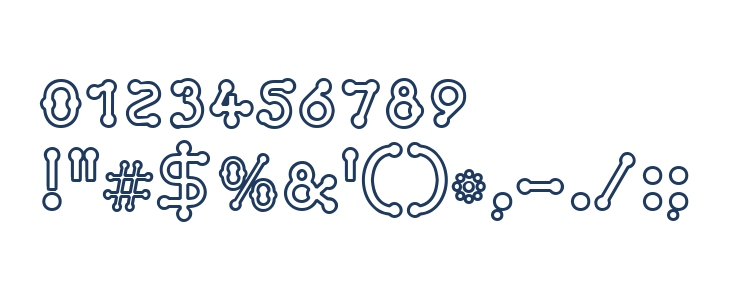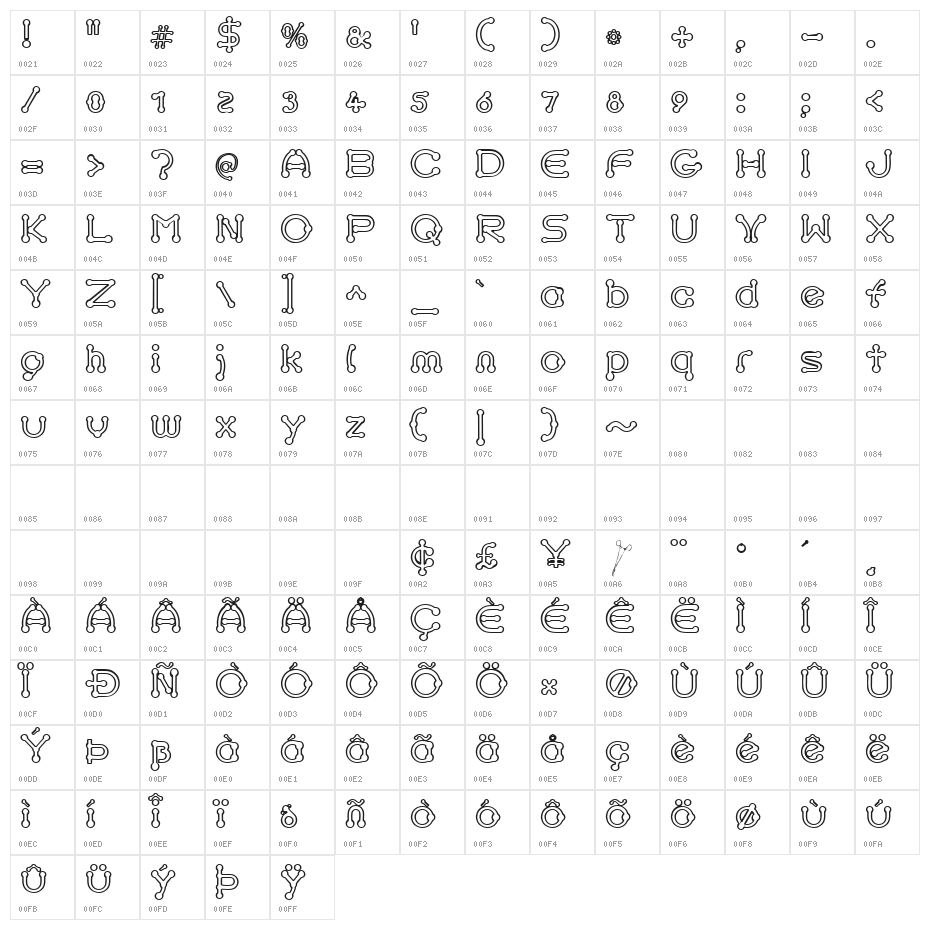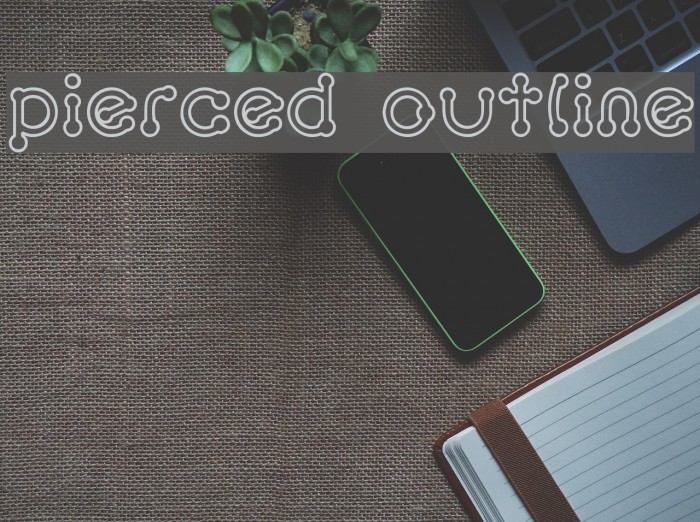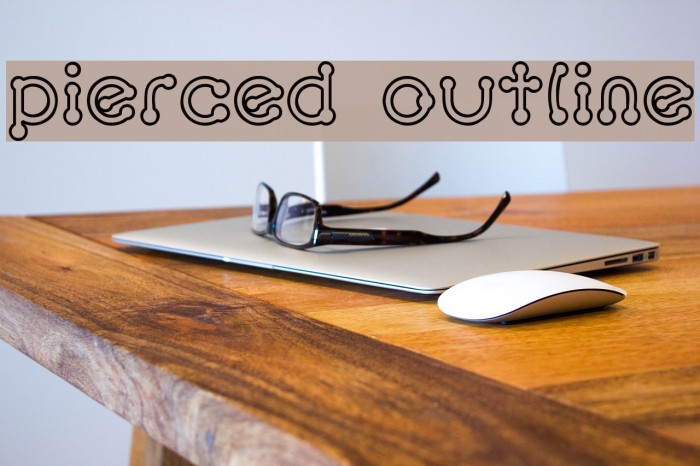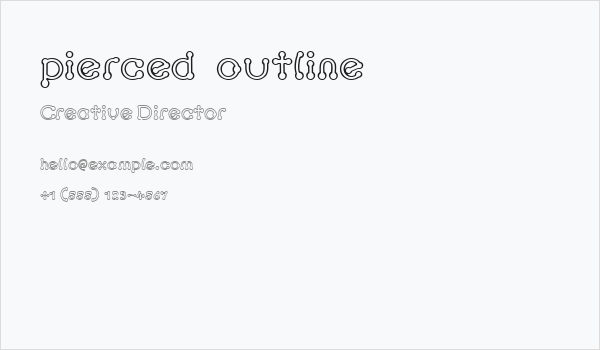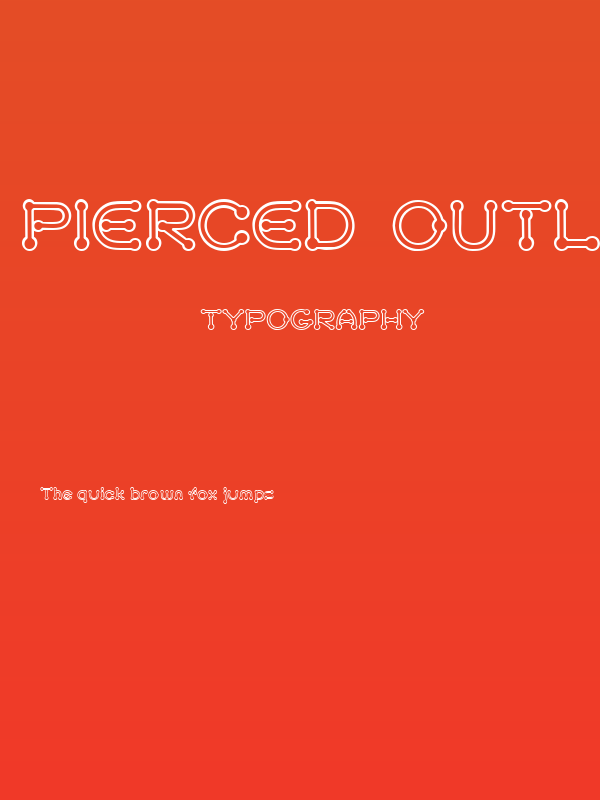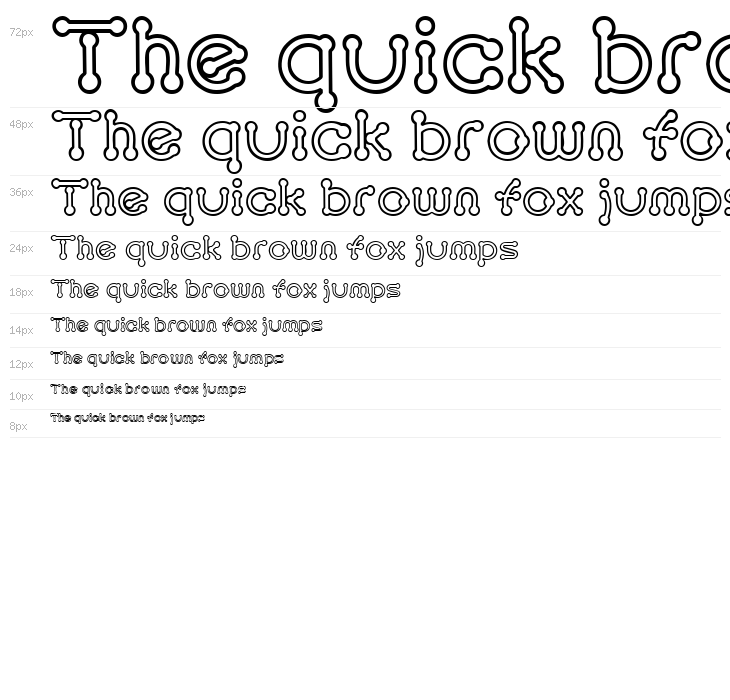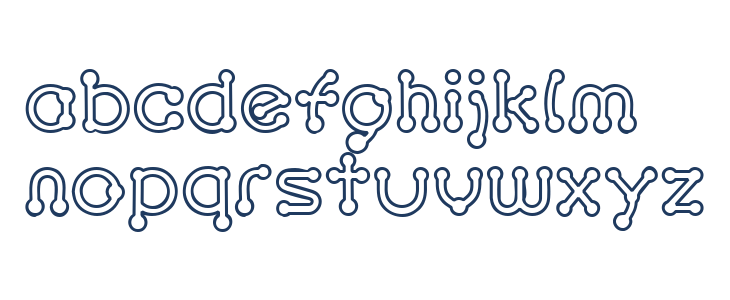
pierced outline Font
pierced outline Description
This font features a unique outline style with a pierced effect, creating a playful and eye-catching appearance. Each character is defined by a bold outer line with a hollow interior, giving it a distinct, modern look. The rounded edges and consistent thickness throughout the characters add a sense of uniformity and balance. The font includes both uppercase and lowercase letters, numbers, and a variety of special characters, making it versatile for different design needs. Its decorative nature makes it suitable for projects that require a bold statement or a fun, informal touch.
Proposed ProjectsIdeal for posters, children's book covers, playful branding, and creative advertisements.